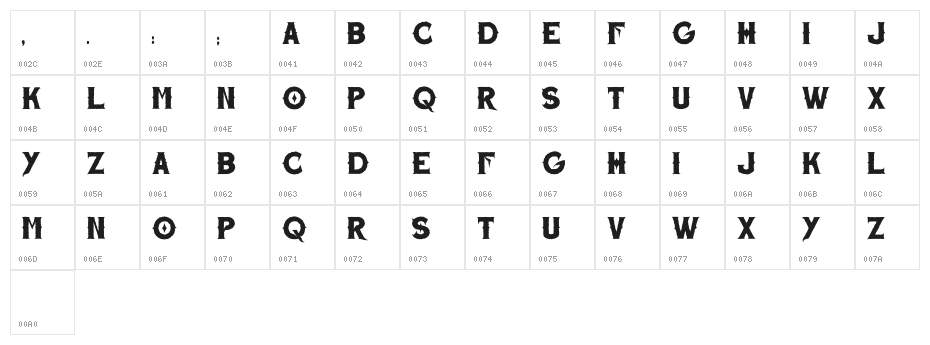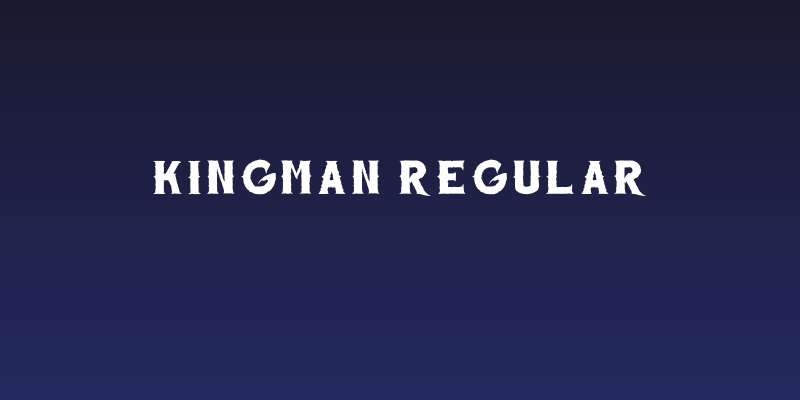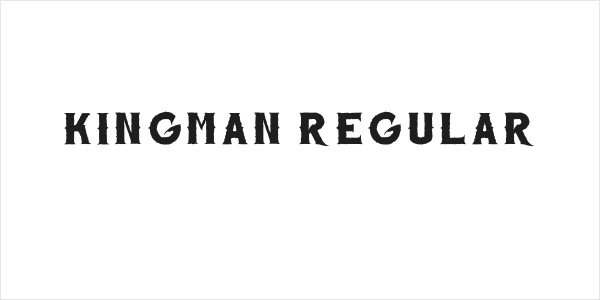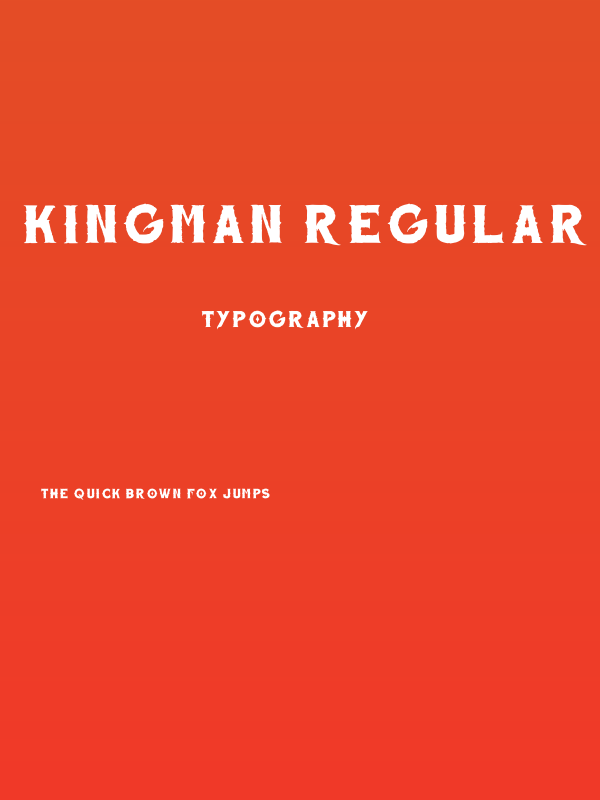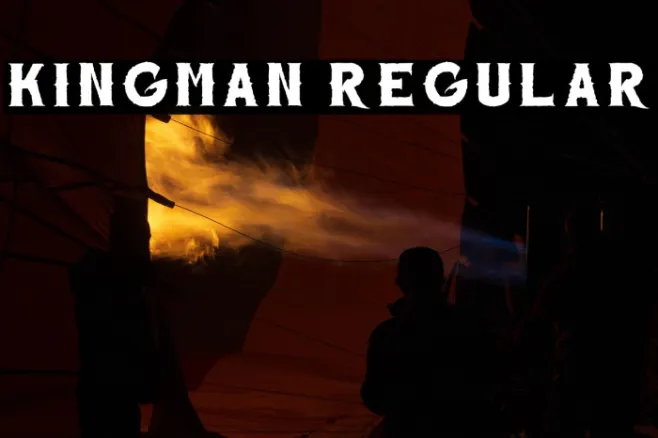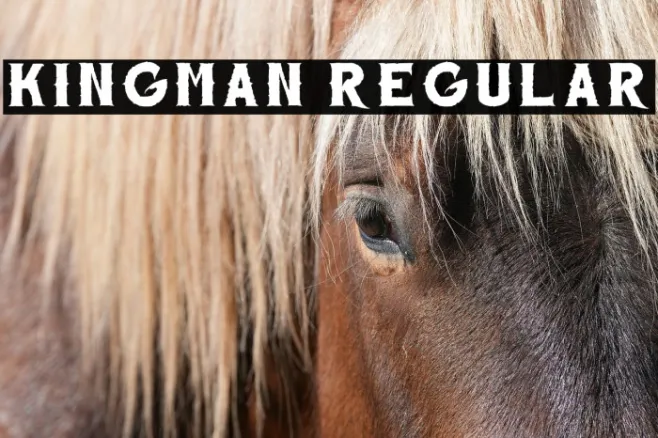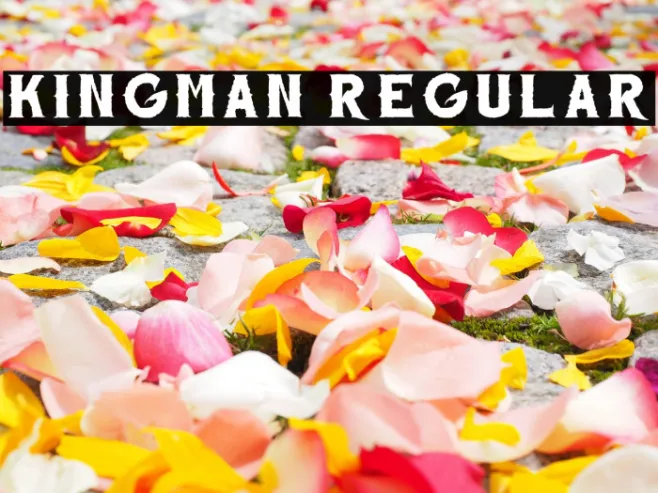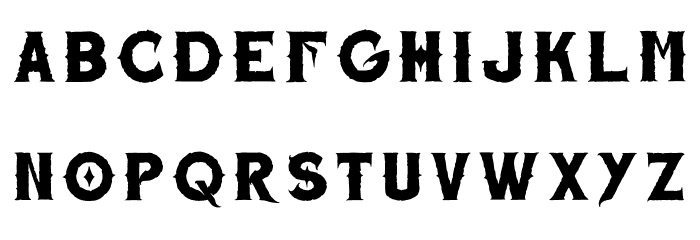
Kingman Regular Font
Kingman Regular Description
This font features a bold and dramatic style with sharp, angular edges and a distressed appearance. The uppercase letters are particularly striking, with unique cuts and slashes that give a sense of movement and intensity. The font's design is reminiscent of vintage horror or thriller movie posters, making it ideal for projects that require a touch of the dramatic or eerie. The characters are evenly spaced, ensuring readability despite their intricate design. The overall aesthetic is both eye-catching and memorable, perfect for making a bold statement.
| Overall Style | Vintage, Dramatic |
| Use Case | Headlines, Posters, Logos |
| Proposed Projects | Ideal for horror movie posters, Halloween event flyers, or any project needing a dramatic, eerie touch. |